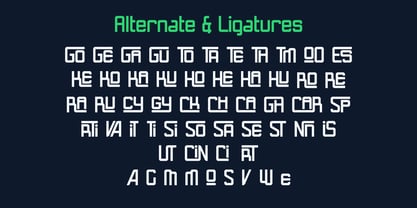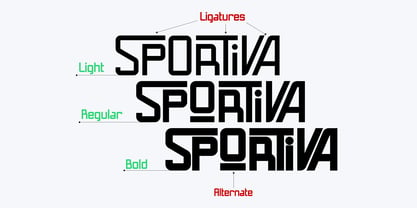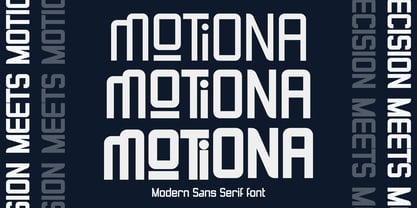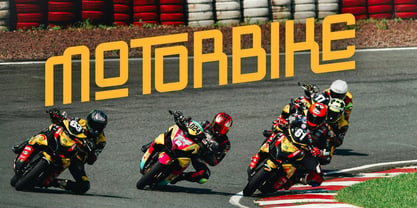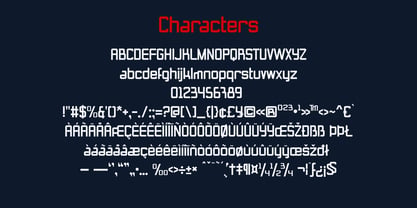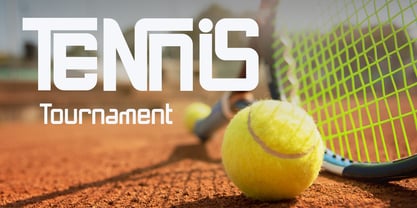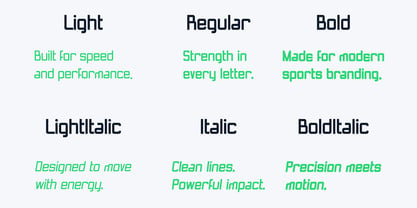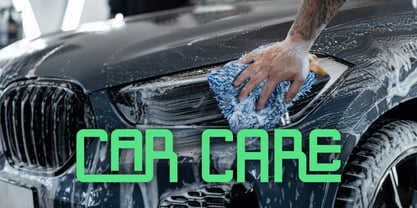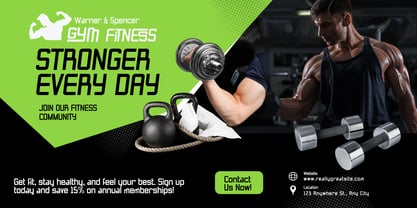
Motiona
por Brown Cupple Typeface
La familia tipográfica Motiona fue diseñada por Nattha​ Potchanad​ y publicada por Brown Cupple Typeface. Motiona contiene 6 estilos y opciones de paquete familiar. Más información sobre esta familia
Motiona – the athletic typeface that has been conceived from the spirited aesthetics of America’s favorite pastime. With a solid infusion of retro-chic, Motiona delivers a vivacious persona that’s ideal for team jerseys, sports-themed logos, event publicity, and products craving a bold, self-assured aura. Capturing the essence of dynamic gameplay, this font instills a perception of energy and robust flair to your designs. Dive into the world of sports and vintage aesthetics with Motiona typeface.
Diseñadores: Nattha​ Potchanad​
Fundición: Brown Cupple Typeface